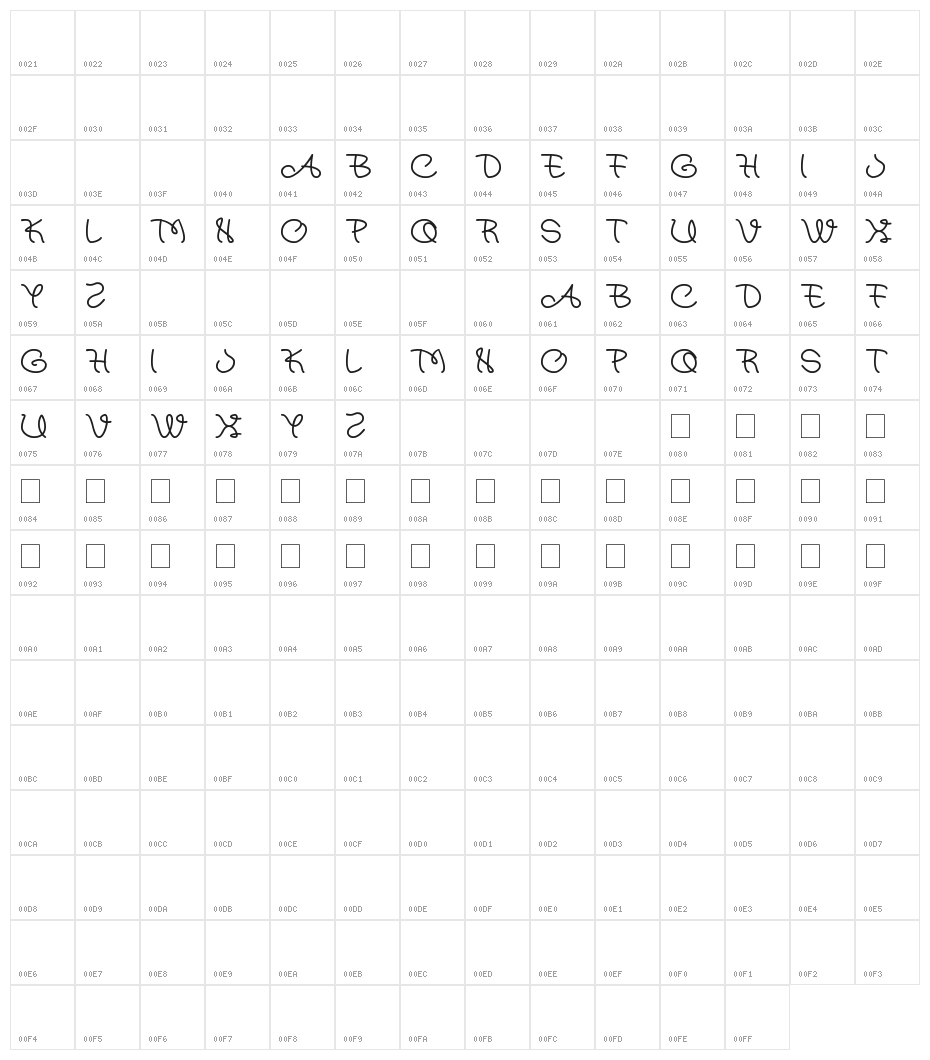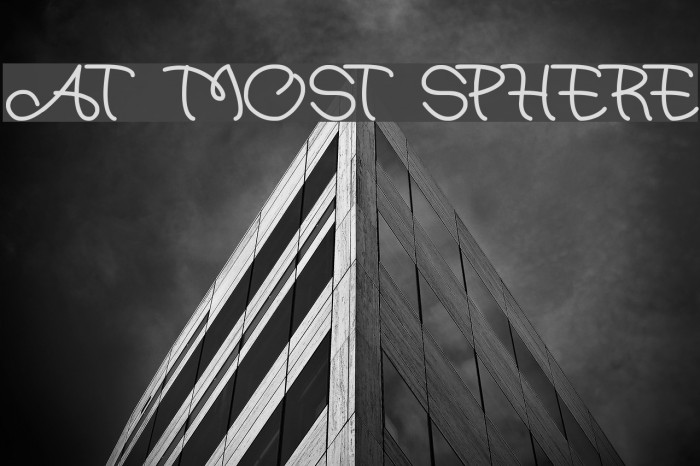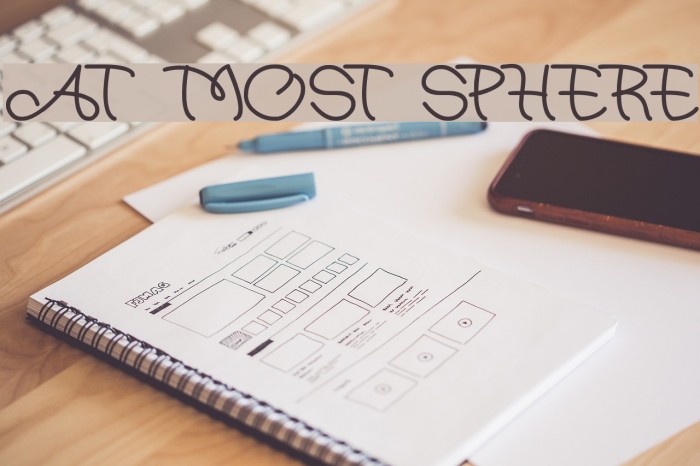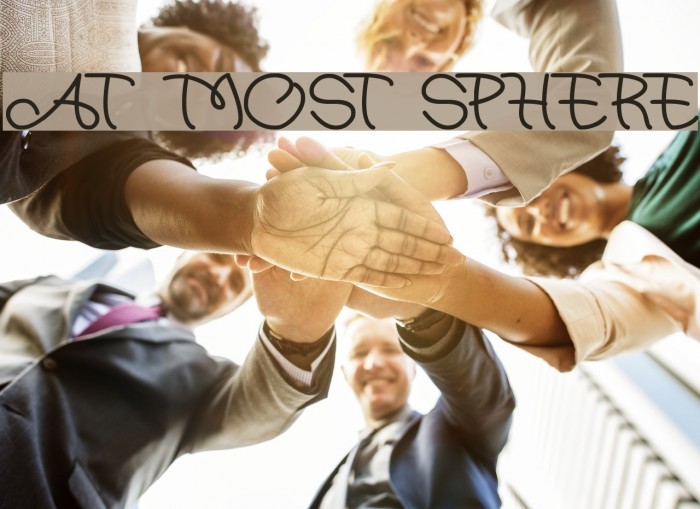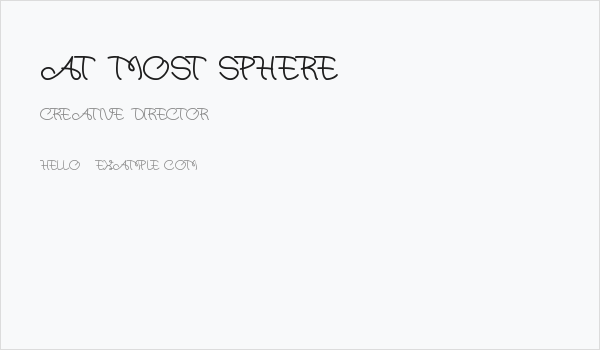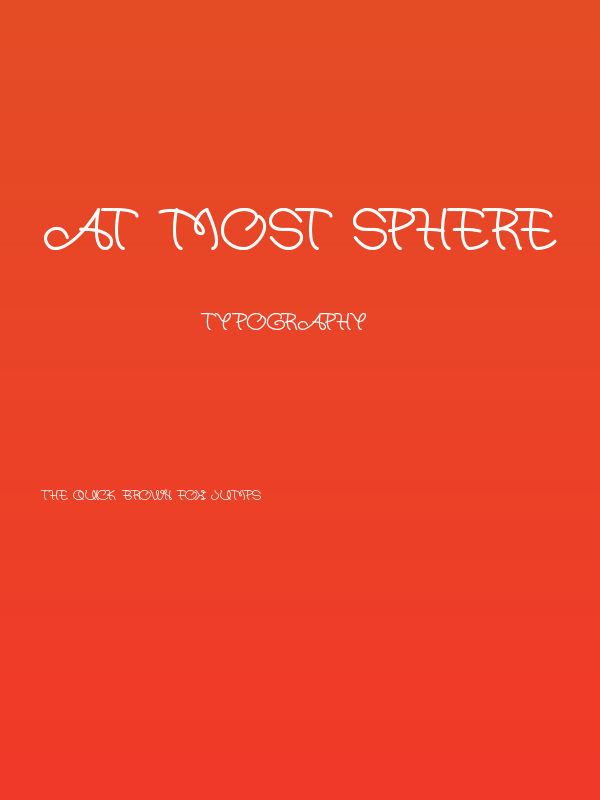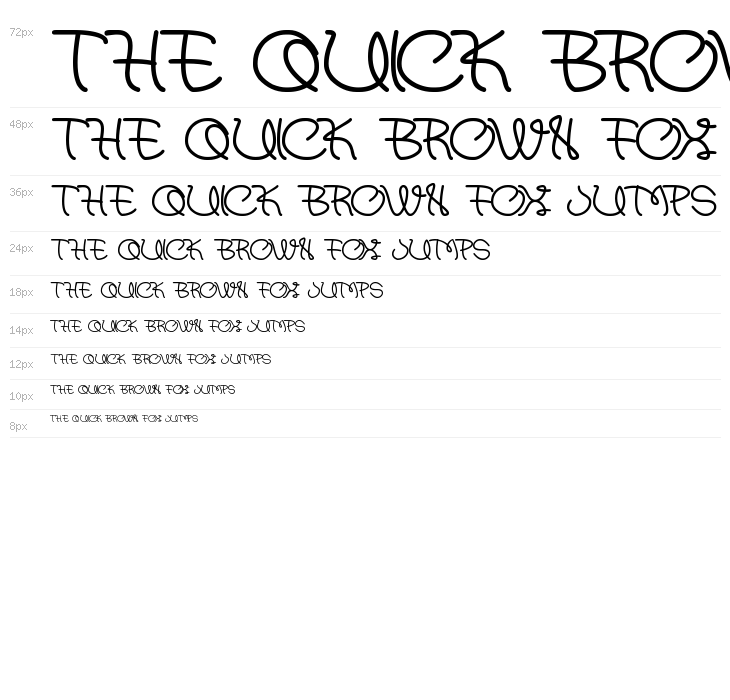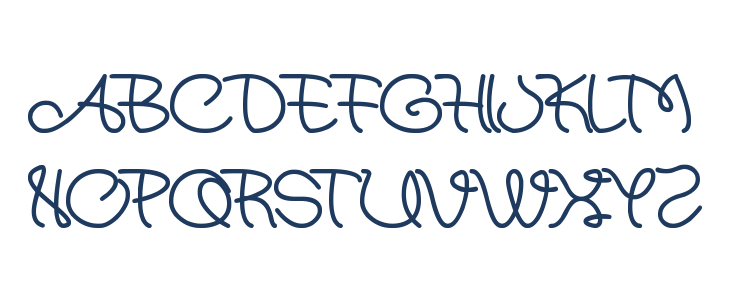
at most sphere Font
at most sphere Description
This font features a playful and decorative style with a unique, swirling design. The characters are interconnected with loops and curves, giving it a whimsical and artistic appearance. The uppercase letters are particularly ornate, with each character exhibiting a distinct flair that adds to the font's charm. The overall design is consistent, maintaining a balance between readability and decorative elements. This font is ideal for projects that require a touch of creativity and elegance, making it suitable for invitations, greeting cards, and artistic branding.
| Proposed Projects | Ideal for invitations, greeting cards, artistic branding, and creative projects. |